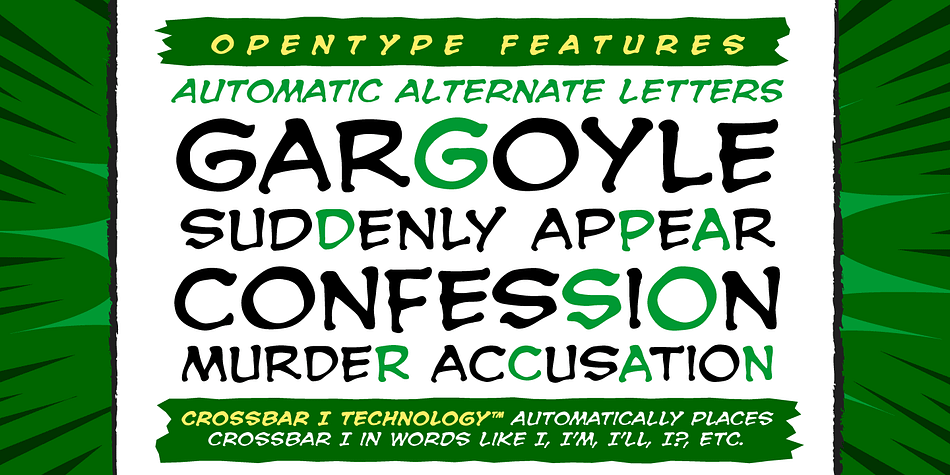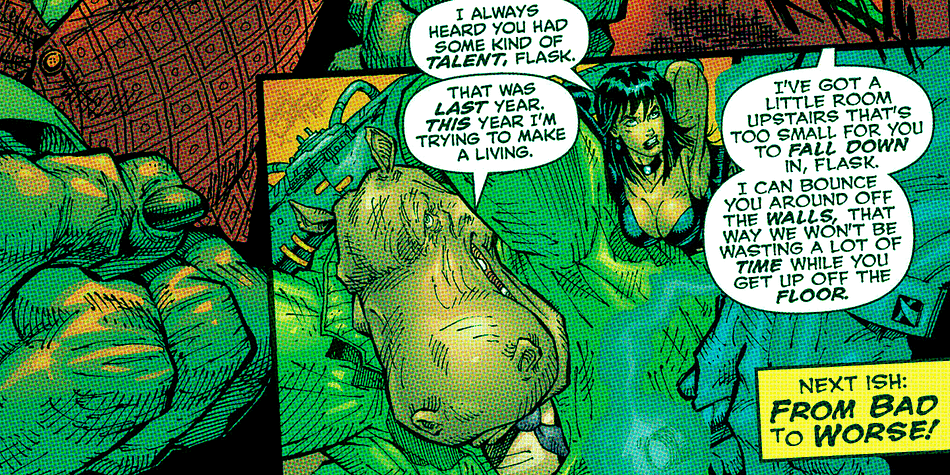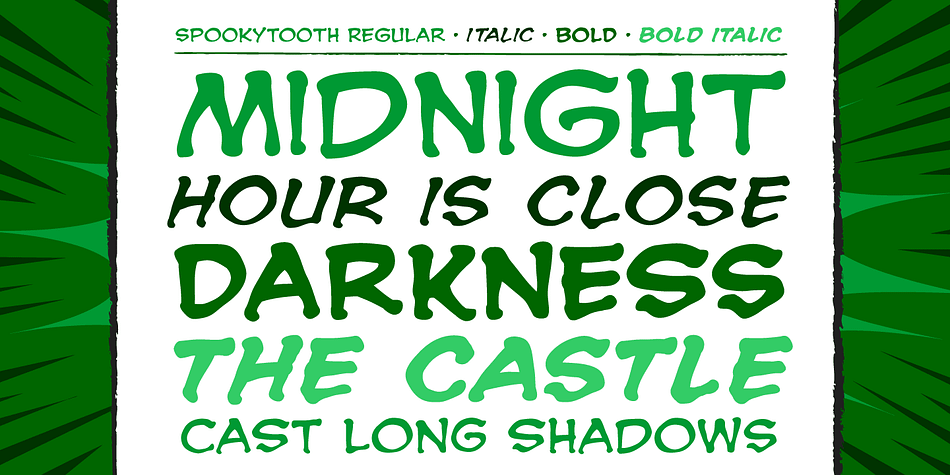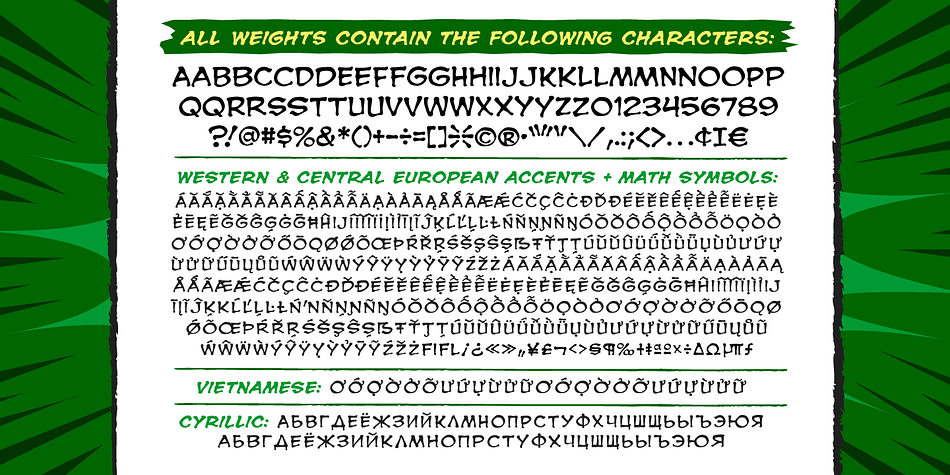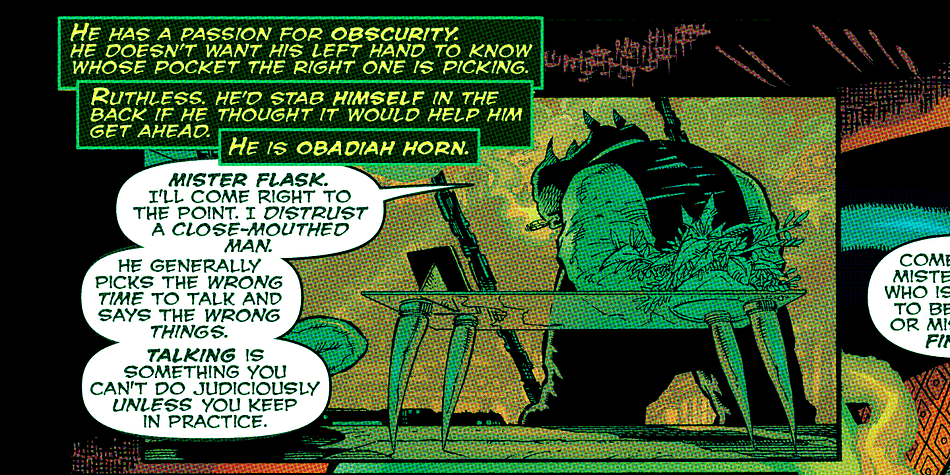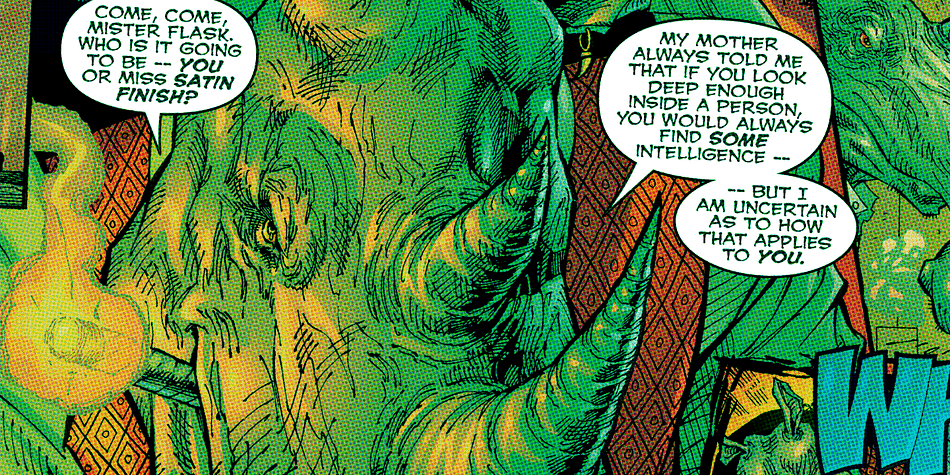
Designed by John Roshell, Spooky Tooth is a comic and hand drawn font family. This typeface has three styles and was published by Comicraft.
Created for GHOST RIDER by Comicraft fontmeister John ‘Gargoyle’ Roshell, Spookytooth was made famous as the voice of DEADPOOL. A lettering font with bite!